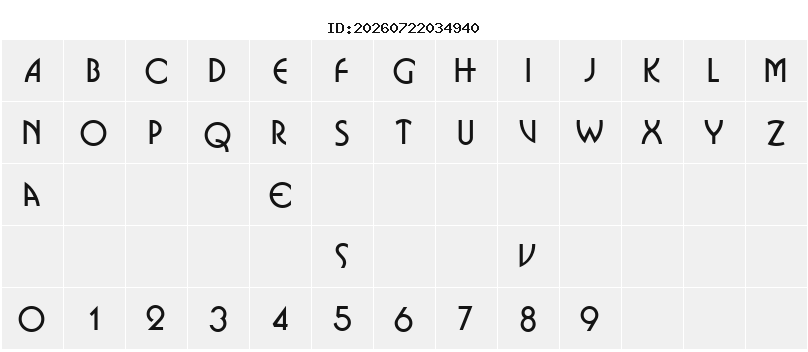
FFX Buster.ttf is a modern, elegant sans-serif font designed for ultimate readability and visual harmony. Perfect for branding, headlines, web design, and print materials.